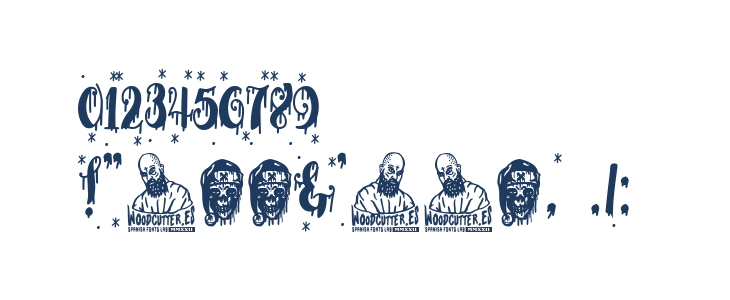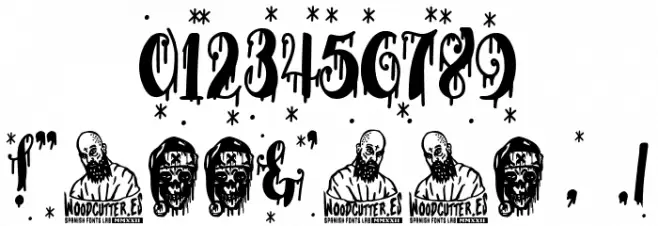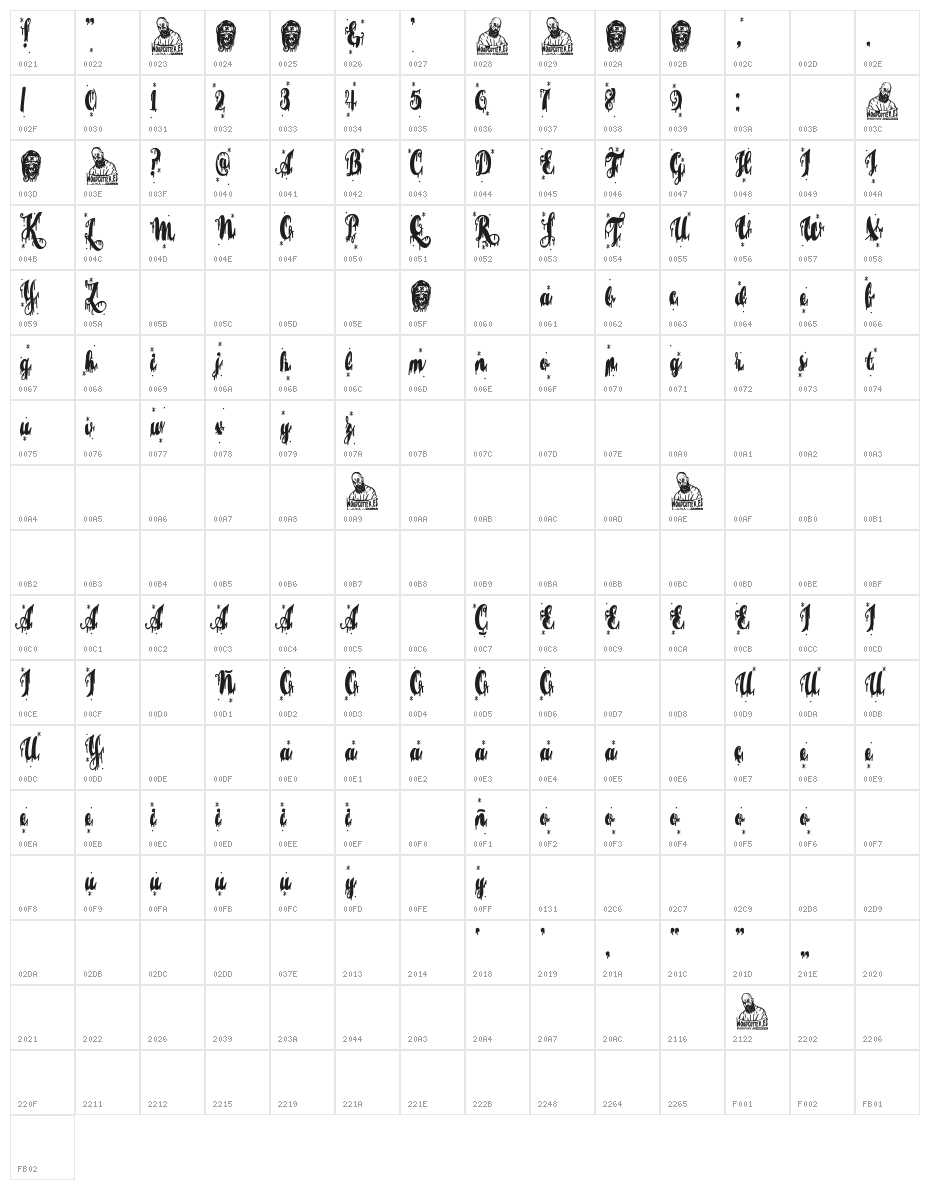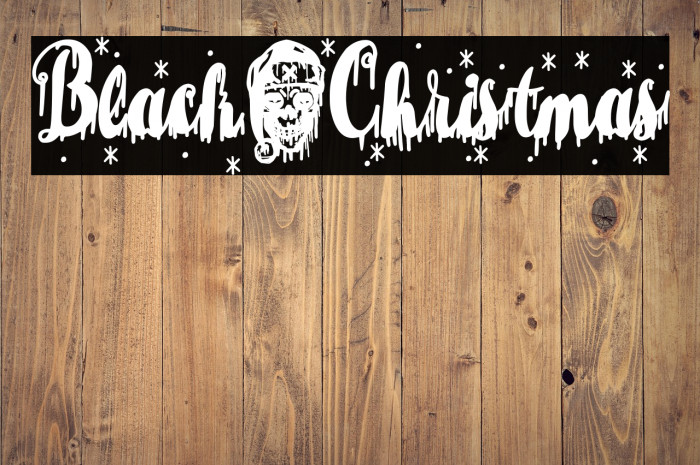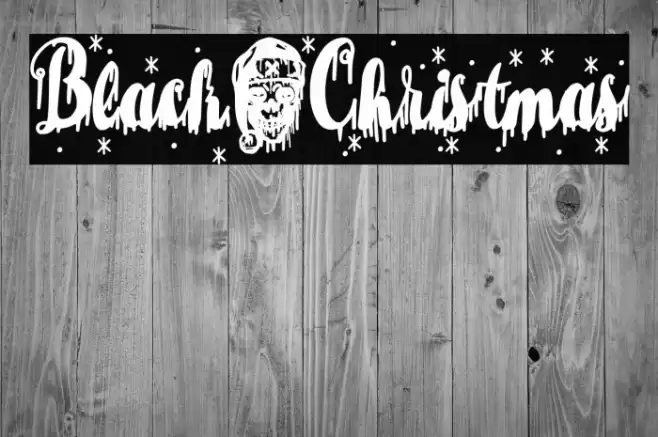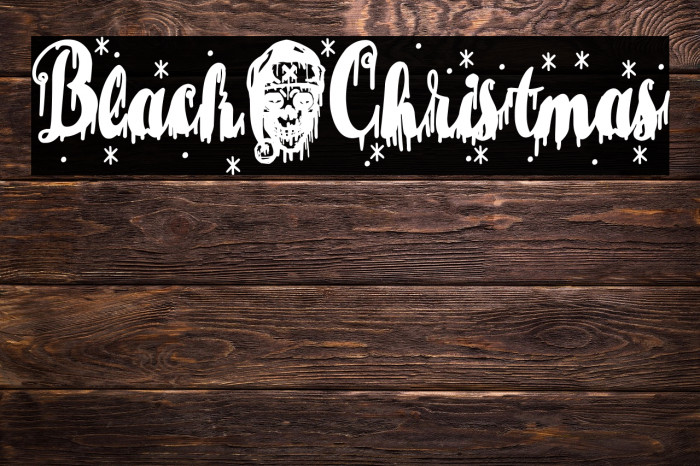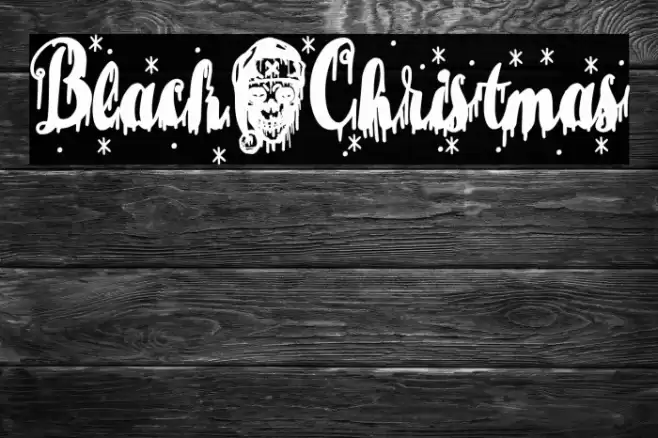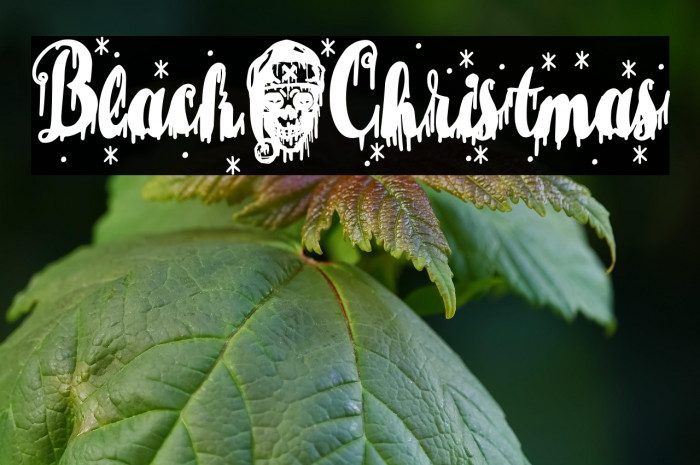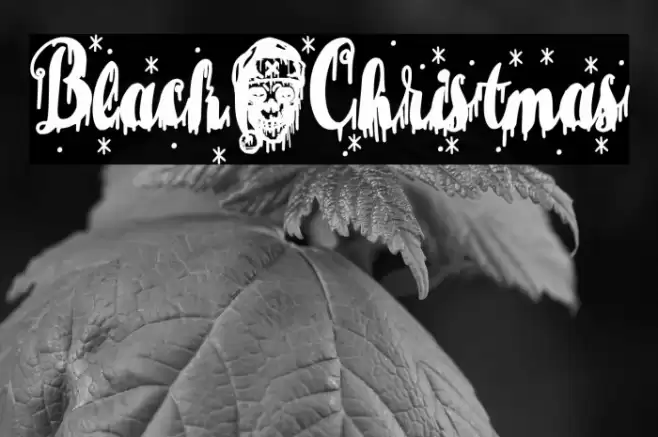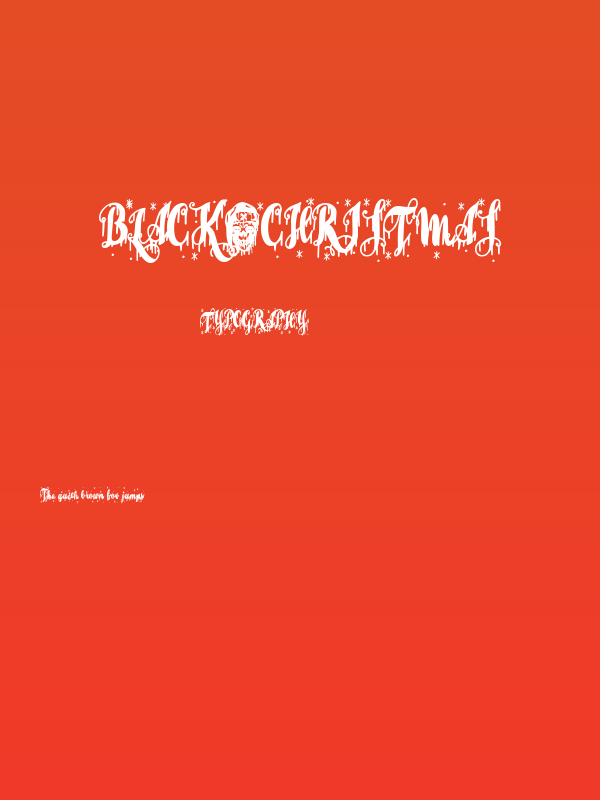
Black_Christmas Font
Black_Christmas Description
This font features a unique and dramatic style with dripping elements that evoke a sense of mystery and intrigue. The uppercase and lowercase letters are adorned with star-like accents, adding a whimsical touch. The characters are bold and have a hand-drawn appearance, making them stand out with a gothic flair. The numerals and special characters maintain the same dripping effect, ensuring consistency across the font. This design is perfect for creating an eerie or festive atmosphere, suitable for themes that require a touch of the macabre or holiday spirit.
| Overall Style | Gothic, Festive |
| Proposed Projects | Ideal for Halloween or Christmas-themed posters, horror movie titles, party invitations, and decorative signage. |